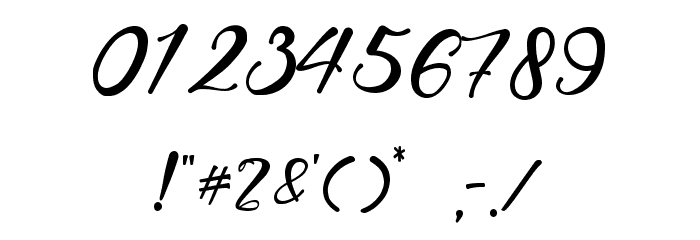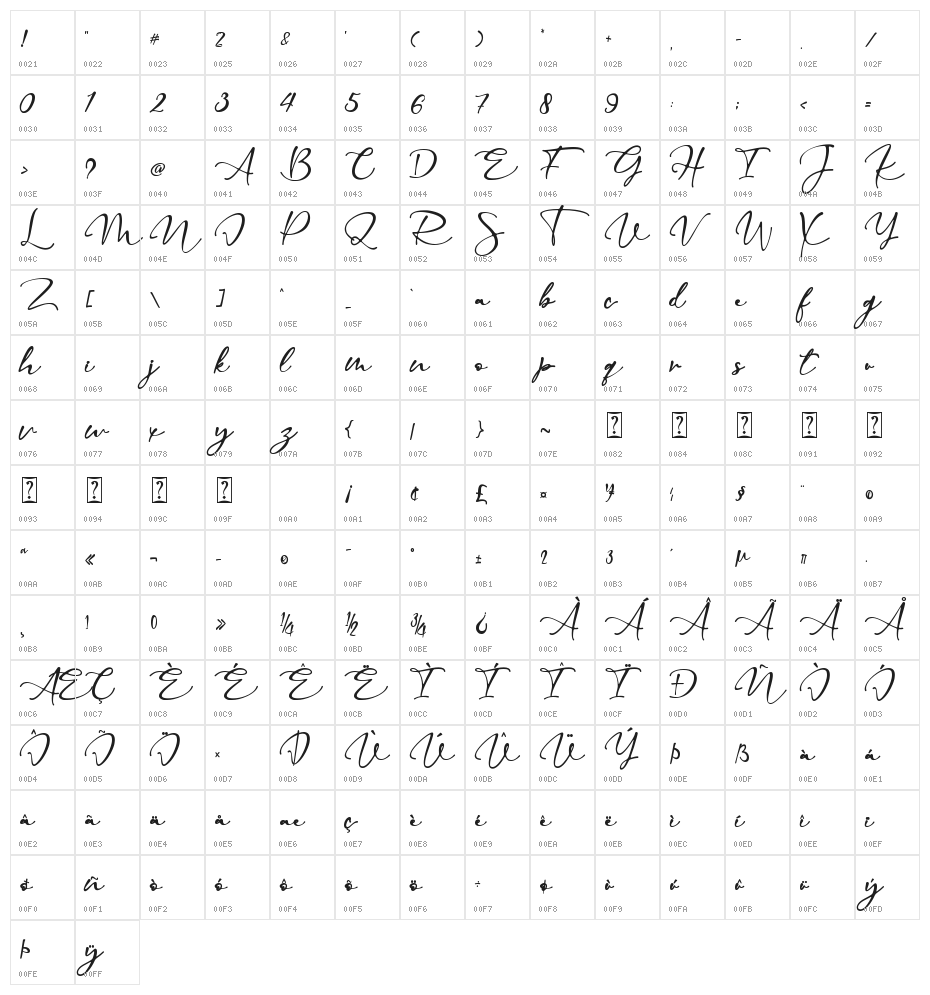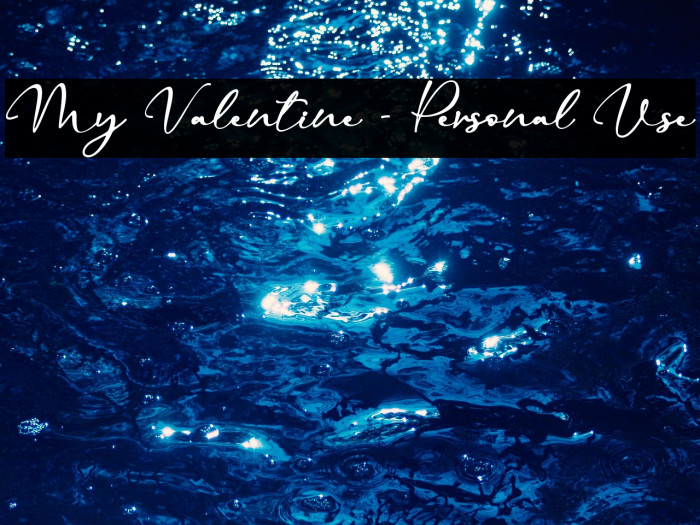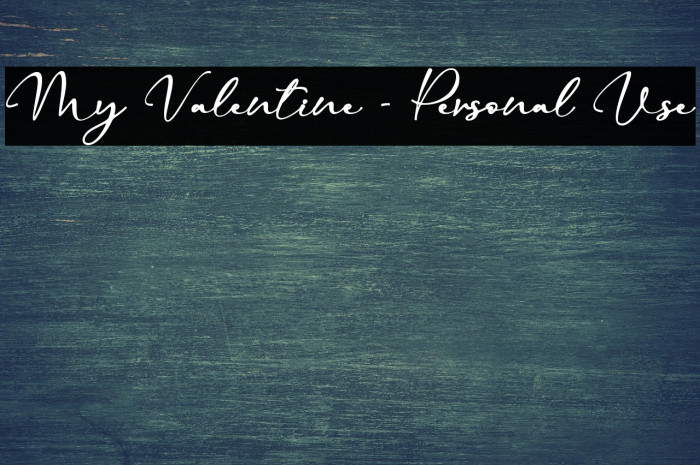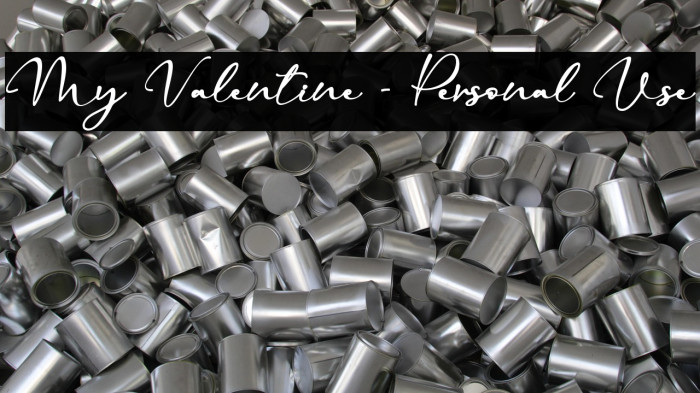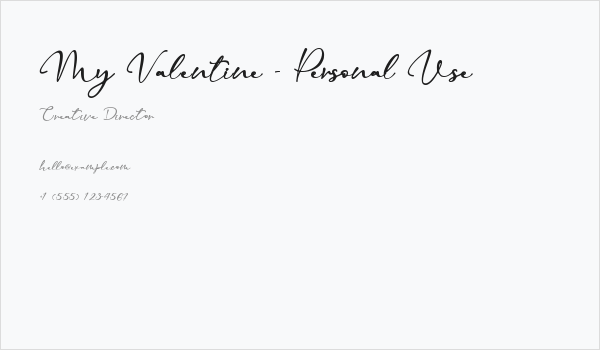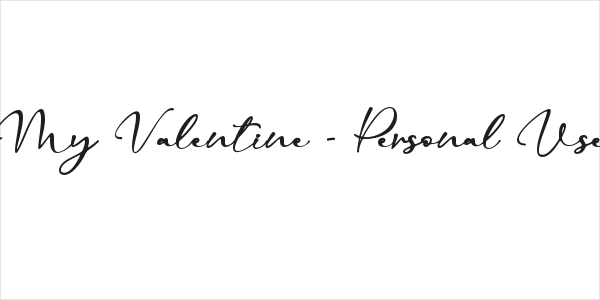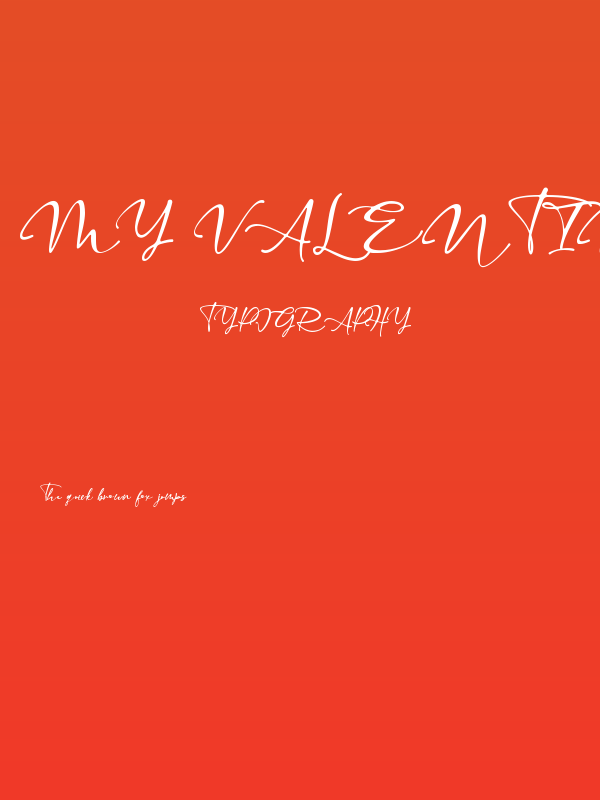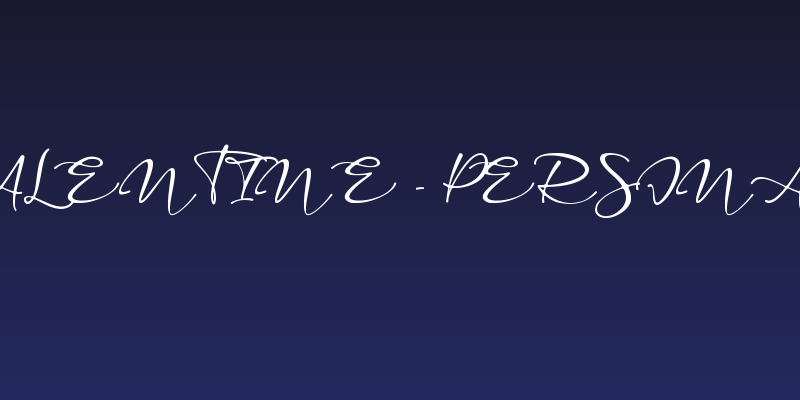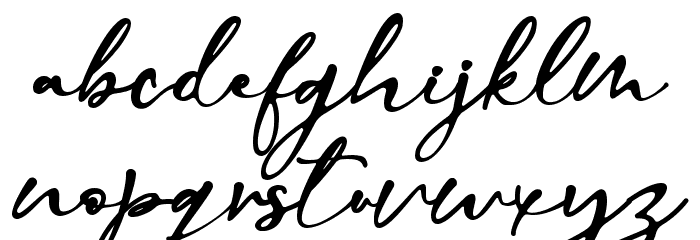
My Valentine - Personal Use Font
My Valentine - Personal Use Description
This font exudes a romantic and elegant style with its flowing, cursive script. The uppercase letters are delicately connected, creating a sense of continuity and grace. The lowercase letters maintain a consistent flow, enhancing readability while preserving the artistic flair. Numbers and special characters are crafted with the same attention to detail, ensuring a cohesive look throughout. The font's overall appearance is both sophisticated and approachable, making it suitable for a variety of creative projects.
| Overall Style | Romantic, Elegant |
| Use Case | Headlines, Invitations, Personal branding |
| Proposed Projects | Ideal for wedding invitations, greeting cards, personal branding, and romantic-themed designs. |